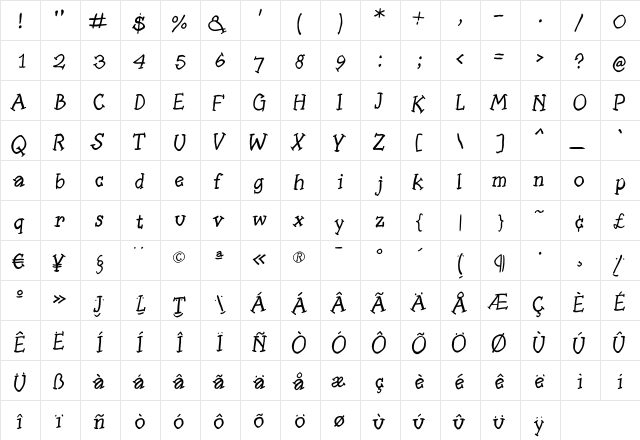
SlabSerifWritten Italic
Design Context for SlabSerifWritten Typeface
SlabSerifWritten combines the readability of serif typography with the visual weight of a slab construction, resulting in a typeface that feels both authoritative and approachable. The dynamic lean of this cut emphasises speed and emphasis in any layout.
Suited to magazines, political campaign materials, bold packaging, and any setting where authority matters.
Pro Tip: Use SlabSerifWritten for headlines and subheadings where its slab serifs can make an impression. It also holds up well in mid-size body copy thanks to its sturdy construction.